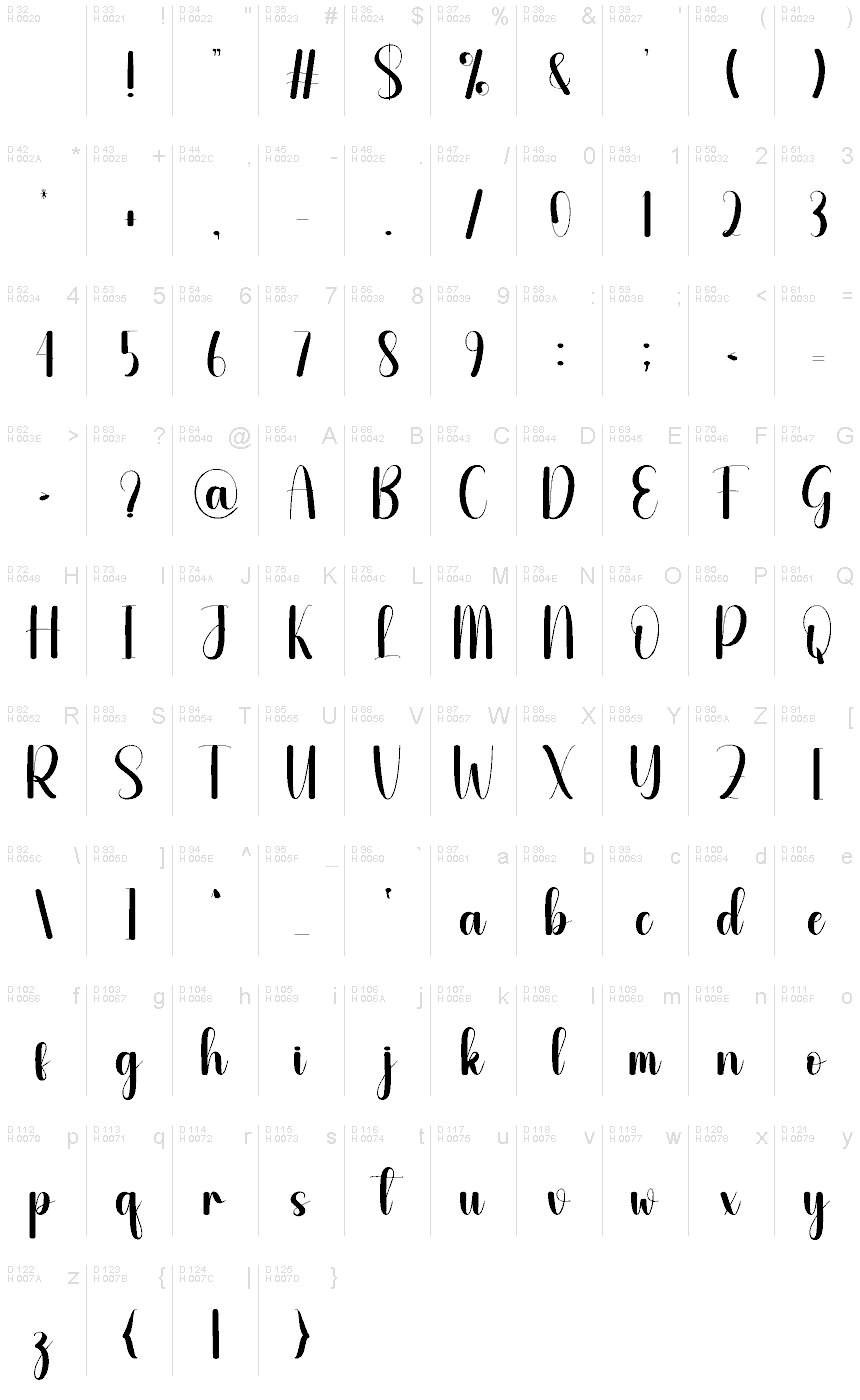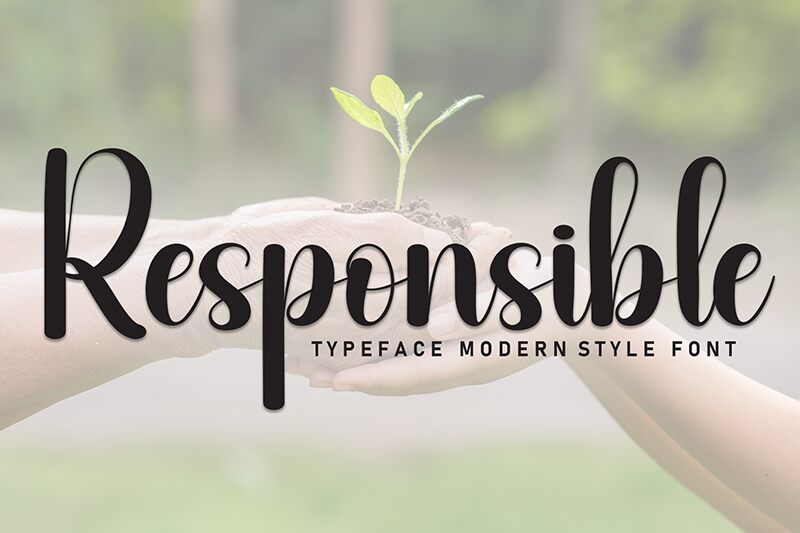
Responsible
Responsible font by Andi Moz is a free calligraphy piece that employs elegance through flowing lines and harmonious characters. This stylish script font showcases contemporary aspects while keeping a consistent classic tone that appeals to every reader. Responsible font stands out with its curves displaying fluent vibes, essential for outstanding impressions.